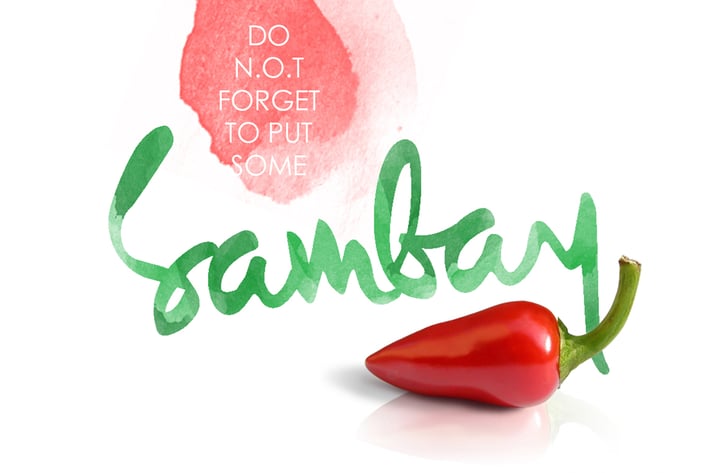
Sambay Typeface
Sambay is a fresh typeface inspired from my college notes. its simply simple. Sambay is a acehnese phrase which mean sauce. It has brush script characteristics in general and is also designed in detail letter by letter to create the best geometric values. It is particularly designed to get better connections between letters and to get the best rhythm for words. It is not just a hand brush typeface, Sambay is a high quality designed typeface that can be used for graphic designs like packaging, branding, poster design, invitations.